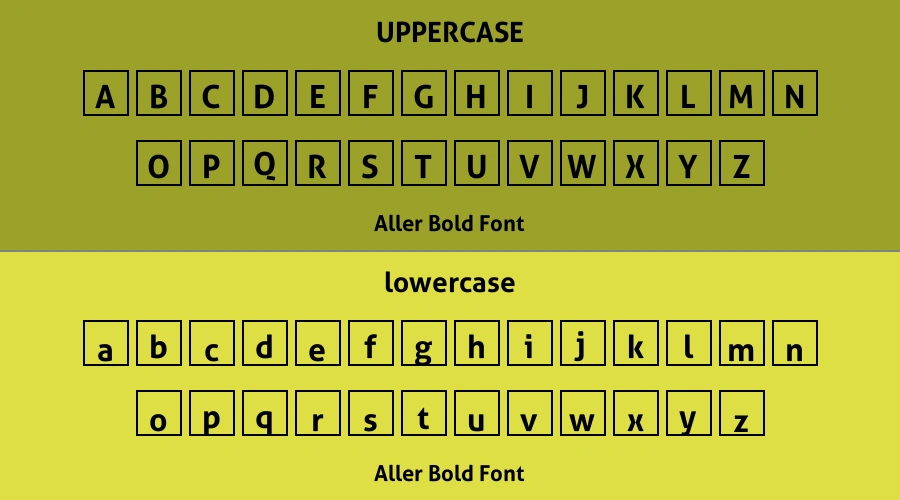
About Aller Bold Font
Aller Bold Font stands out for its distinctive combination of clean corners and craftsmanship. Ideal for poster titles, it provides the distinctiveness and brand power that professional projects demand. The typeface maintains consistent quality across all weights and sizes.
Key features include refined open counters and practical swash characters, enhancing typographic expression. In specification lists applications, Aller Bold Font demonstrates exceptional versatility. The aperture size and market positioning contribute to its distinctive character and professional appeal.